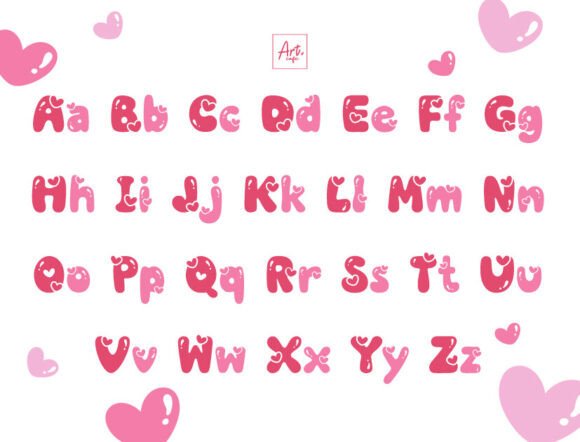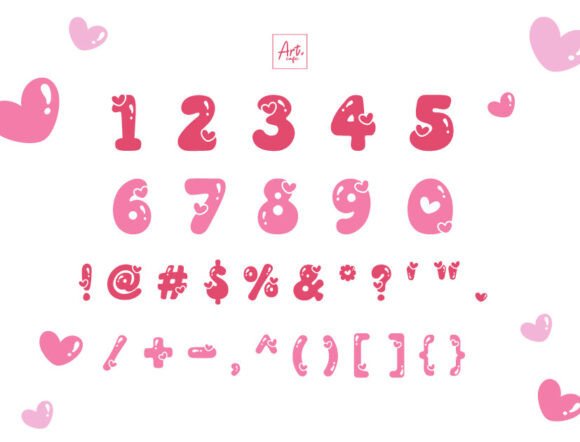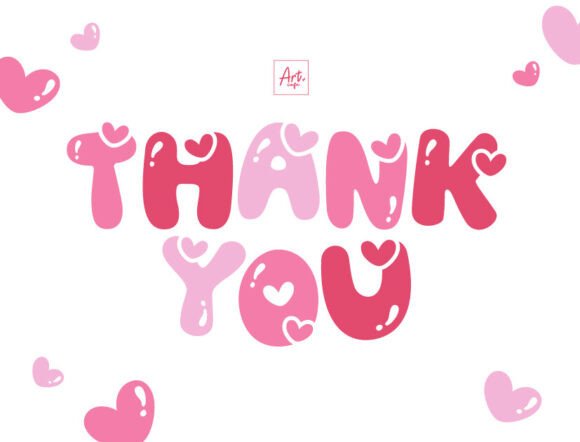
A Font that Captivates Hearts
Have you ever stumbled upon a font that immediately sparks your creativity and makes you feel like a kid again? For me, that moment came when I discovered the whimsical Bubble Heart Font. Its bold, playful style and adorable details, like the little hearts scattered throughout each letter, are the perfect combination to add a touch of magic to any design project.
The Bubble Heart Font is a versatile tool that lends itself beautifully to a wide range of applications, from eye-catching posters to compelling headlines. Its heartwarming charm makes it a natural choice for designers looking to add a dash of love and creativity to their work. Whether you’re working on a kid-themed project or need to bring a touch of romance to your Valentine’s Day materials, the Bubble Heart Font is the perfect addition to your design toolkit.
Bubble Heart Font Key Features
- Unique Characteristics: The Bubble Heart Font features a unique, playful design with rounded shapes and bubbly textures, making it ideal for creative and whimsical projects.
Bubble Heart Font Review
I recently had the chance to work with the Bubble Heart Font, and I must say it’s a unique and eye-catching addition to any design project. ✨ One of the things I love about this font is its whimsical feel, perfect for creating a playful and romantic atmosphere. The rounded shapes and bubbly texture add a touch of sweetness that’s hard to resist.
Here are some of the things that work well with the Bubble Heart Font:
- Perfect for wedding invitations, baby announcements, and other celebratory designs.
- Great for creating a nostalgic feel, reminiscent of old-fashioned candies and childhood treats.
- Works well in combination with other fonts to add a touch of elegance and sophistication.
However, there are some limitations to keep in mind:
- May not be suitable for formal or professional designs, as it can come across as too playful or immature.
- Can be difficult to read in smaller sizes, as the rounded shapes can make it hard to distinguish between letters.
- Not suitable for designs that require a lot of text, as it can be overwhelming and hard to read.
Overall, I think the Bubble Heart Font is a great addition to any designer’s toolkit. While it may have some limitations, its unique charm and playful feel make it perfect for the right project. With a little creativity and restraint, it can add a touch of magic to even the most mundane designs.
For the most out of the Bubble Heart Font, use it sparingly to create emphasis and add visual interest. Pair it with other playful fonts to create a unique look.
The Bubble Heart Font is ideal for creating playful and whimsical designs, such as: greeting cards, social media graphics, and children’s book illustrations.